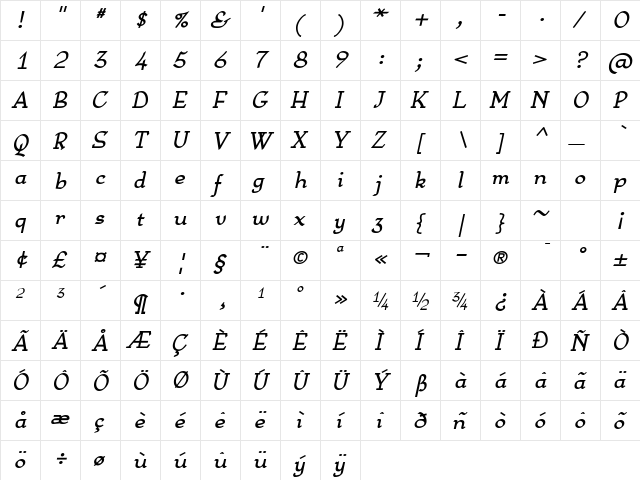
Anarckhie BoldItalic
Design Context for Anarckhie Typeface
Anarckhie offers clean, dependable letterforms without strong stylistic allegiance, making it a practical choice for designers who need flexibility. The slanted form adds forward momentum and visual energy. The heavy weight commands attention and anchors typographic hierarchies.
Pro Tip: Try Anarckhie for annotation and caption copy alongside an upright companion — the contrast in angle creates a dynamic but ordered typographic system.